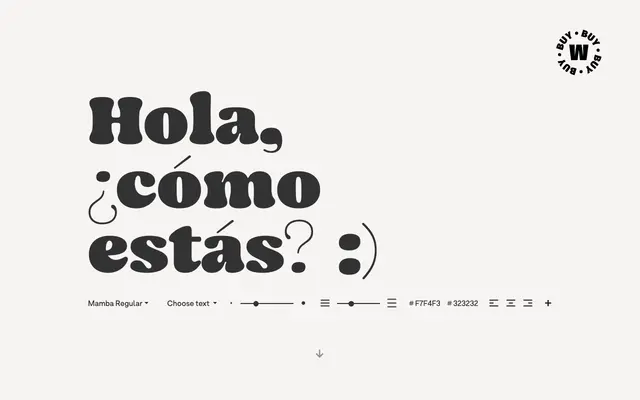
Mamba
A two-style display face by Gaspar Muñoz drawing directly from the Cooper Black tradition, offered in Regular and Oblique.
Mamba takes Cooper Black as its starting point, working within the fat face display genre defined by heavy, rounded strokes and a warmly exuberant character. The family is small, comprising just a Regular and an Oblique, but the focus is deliberate. Best suited to headlines, packaging and poster work where a bold retro personality is wanted.
Inspired by Cooper Black, Mamba belongs to the fat face display tradition characterised by heavy rounded strokes and bold presence suited to headlines and decorative use.